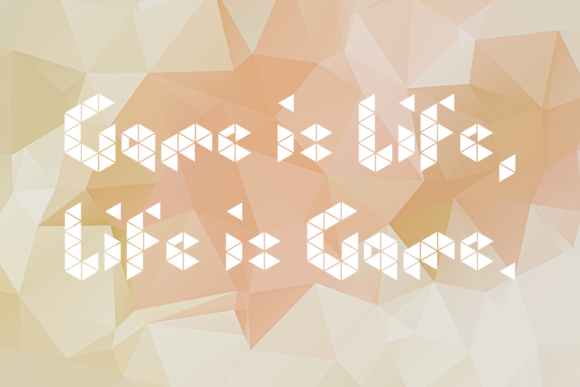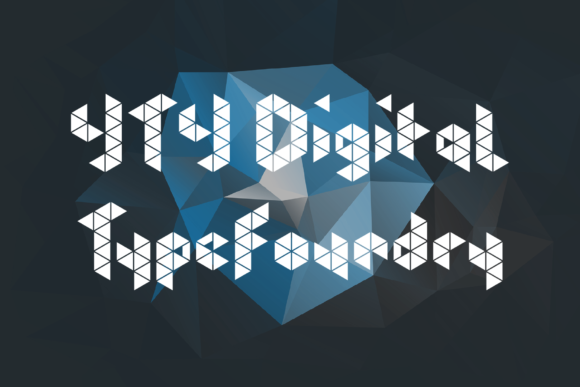
Introduction to Prism Font
Have you ever been stuck in a creative rut, staring at a blank page with no inspiration in sight? For designers, this feeling is all too familiar. But what if you could break free from the ordinary and unleash your imagination with a single font? Enter the Prism Font, a stunning display font that will elevate your designs to new heights.
As a valuable resource for designers, Prism Font offers endless possibilities for creative expression. Its unique geometric shape and high-quality design make it a must-have for any design project. Whether you’re working on a poster, flyer, or print, Prism Font is sure to make a lasting impression. And the best part? It’s available for free download, perfect for designers on a budget or those who want to experiment with new ideas.
With its transparent background and sleek design, Prism Font is the perfect addition to any design project. Whether you’re a seasoned pro or just starting out, this font is sure to inspire your next creative project.
Key Features of Prism Font
- High-quality design resource suitable for various creative projects, including digital art and graphic design.
- Features a transparent background, allowing designers to easily layer it over other elements in their designs.
- Resolution-independent design, ensuring it remains crisp and clear at various sizes and resolutions.
- Unique, stylized design that can add a touch of sophistication to any creative project.
- Perfect for use in digital art, graphic design, and other visual projects where a high-quality font is essential.
Honest Review: Prism Font
As a designer, I’m always on the lookout for high-quality design resources that can elevate my creative projects. The Prism Font has been a game-changer for me, and I’m excited to share my honest review with you.
- High-quality design: The Prism Font is crisp, clear, and beautifully designed, making it perfect for use in various creative projects.
- Transparent background: The transparent background option allows for seamless integration with other design elements, giving you more flexibility in your design.
While the Prism Font is an excellent resource, I did encounter a few limitations:
- Limited customization options: While the font is highly customizable, there are some limitations to what you can change, which might be frustrating for some designers.
Overall, I’m thoroughly impressed with the Prism Font. It’s a high-quality design resource that’s perfect for designers on a budget. While it has some limitations, it’s an excellent choice for personal or small-scale commercial projects.
Prism Font: A High-Quality Design Resource
Some tips for getting the most out of Prism Font include using it on a transparent background to create a modern and minimalist look, combining it with other design elements to create a unique and eye-catching design, and using it in creative projects such as logo design, branding, and packaging.
Common Use Cases for Prism Font
Some common use cases for Prism Font include logo design, branding, packaging, and creative projects such as flyers, brochures, and business cards. Prism Font is also suitable for use in presentations, documents, and websites.
Can I modify the Prism Font to suit my specific design needs?
The Prism Font is a customizable design resource that allows you to create a transparent background for your designs. However, modifying the font itself may require advanced technical skills and knowledge of font editing software. If you’re not familiar with font editing, it’s recommended to use the font as is or consult with a professional designer or font expert.